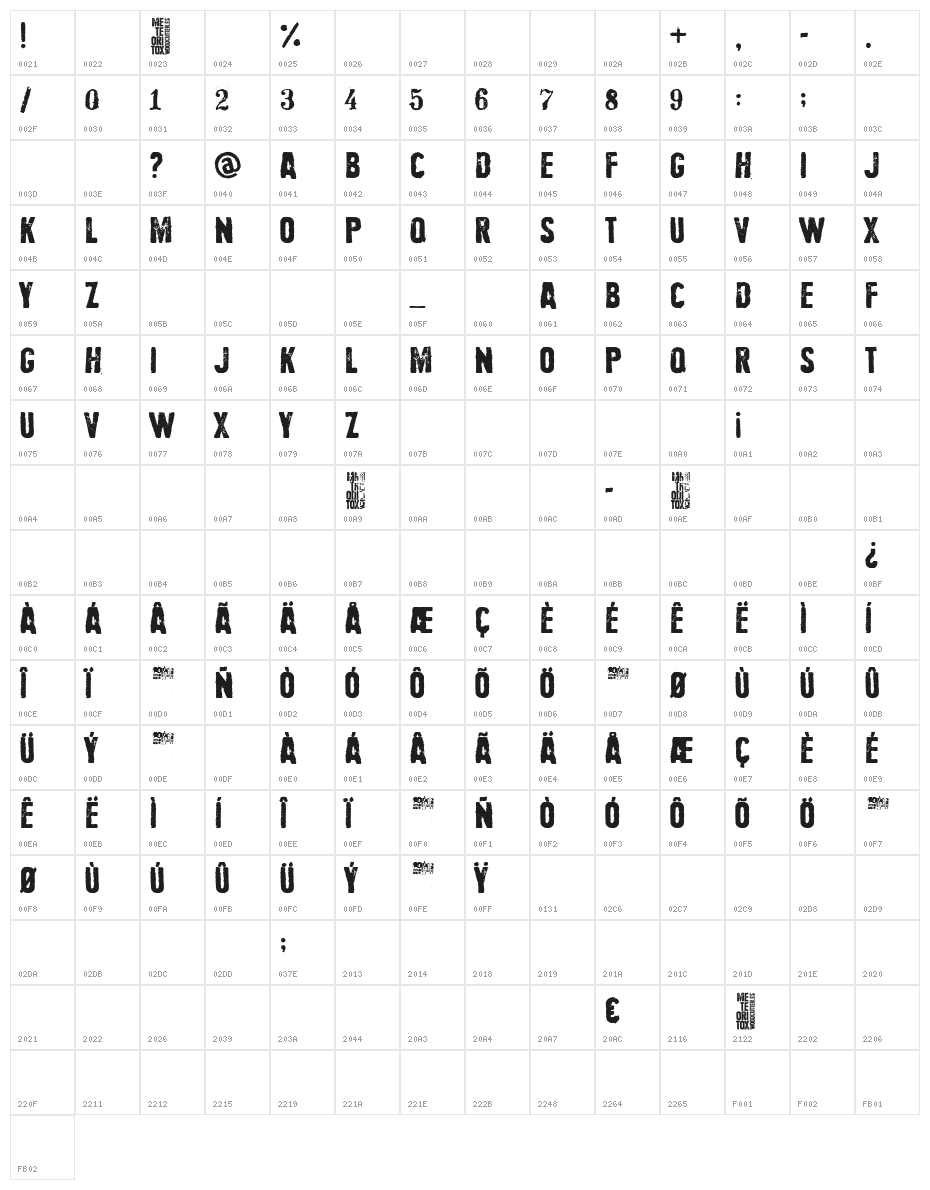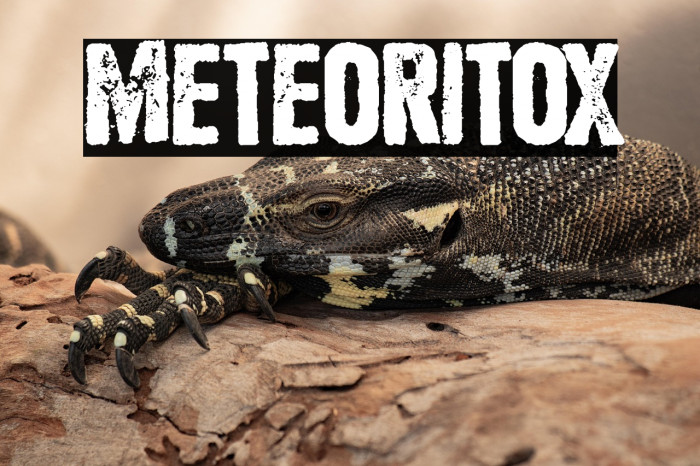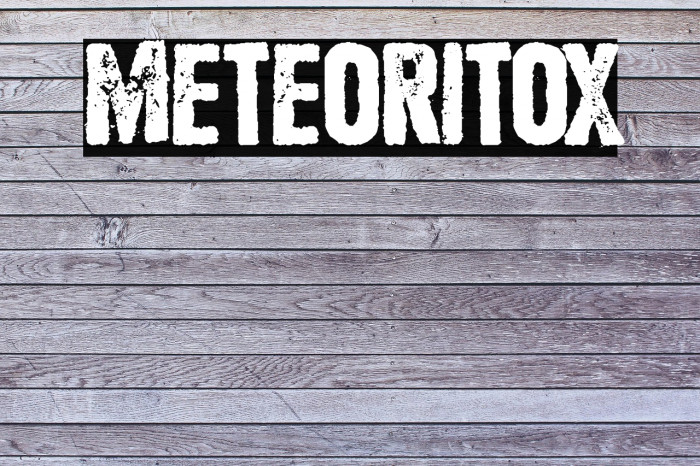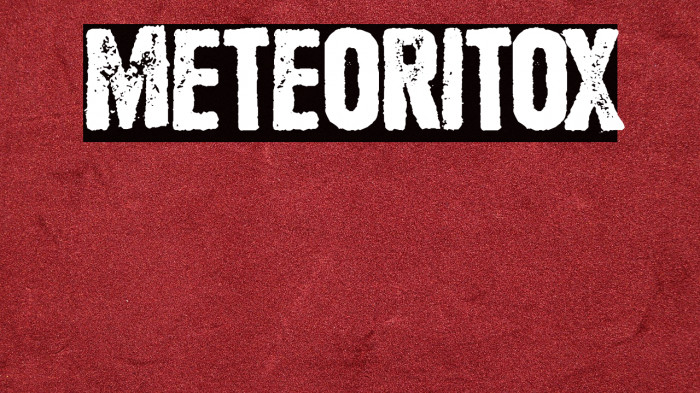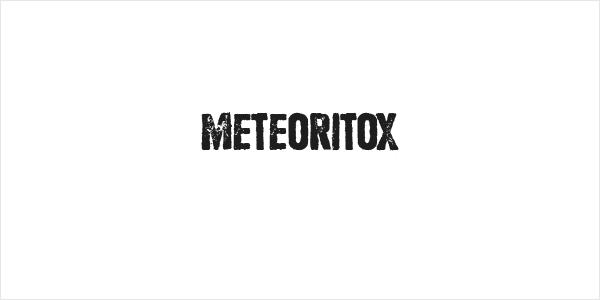
Meteoritox Font
Meteoritox Description
This font features a bold and rugged style with a distressed texture that gives it a worn, vintage appearance. The uppercase letters are strong and impactful, while the lowercase letters maintain the same boldness, ensuring consistency across the typeface. The numbers and special characters are designed to match the overall aesthetic, making them suitable for a variety of applications. The font's rough edges and uneven texture add a unique character, making it ideal for projects that require a gritty, industrial look.
| Overall Style | Vintage |
| Proposed Projects | Ideal for posters, album covers, branding for outdoor or adventure products, and any design needing a bold, vintage look. |